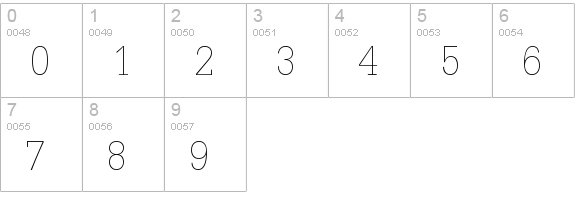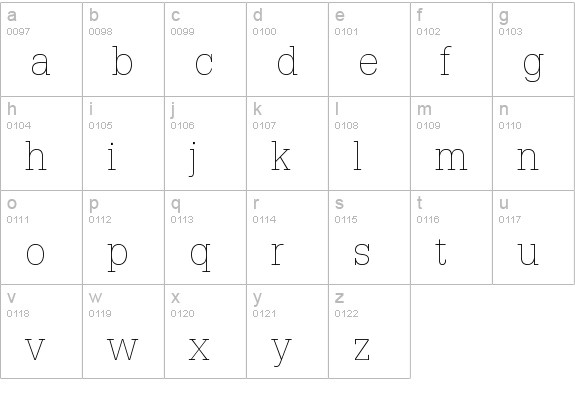
Installation Light SSi Thin is a refined, elegant variant in the Installation typeface family \xE2\x80\x94 well suited to elegant body text, refined sub-headings, and luxury branding.
Installation Light SSi Thin is a beautifully designed font that exudes elegance and sophistication. With its delicate and refined letterforms, this font is perfect for adding a touch of class to any project. The thin strokes and smooth curves of Installation Light SSi Thin create a graceful and fluid appearance, making it suitable for various applications such as branding, advertising, and editorial design. What sets Installation Light SSi Thin apart is not only its stunning aesthetics but also the fact that it is available for free. That's right, this incredible font is freely available to download at FontsMarket.com. Whether you are a professional designer or simply someone who appreciates the beauty of typography, you can now easily access and use Installation Light SSi Thin without any cost. By offering this font for free, FontsMarket.com aims to make high-quality typography accessible to everyone. This gesture allows designers, students, and enthusiasts alike to explore their creativity without the burden of expensive licensing fees. Now, you can elevate your designs and projects with the elegance and finesse of Installation Light SSi Thin, all without spending a dime. With its versatility and affordability, Installation Light SSi Thin proves to be a valuable addition to any font collection. Its clean and modern appearance makes it suitable for both print and digital media, ensuring that your designs will look impeccable across various platforms. So why wait? Enhance your creative endeavors and make a lasting impression with Installation Light SSi Thin. Download this remarkable font for free at FontsMarket.com and unlock a world of possibilities in typography.